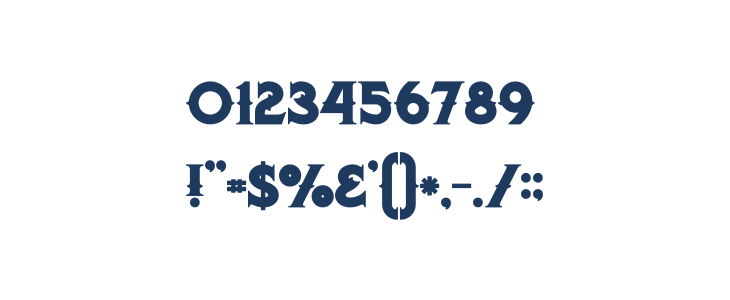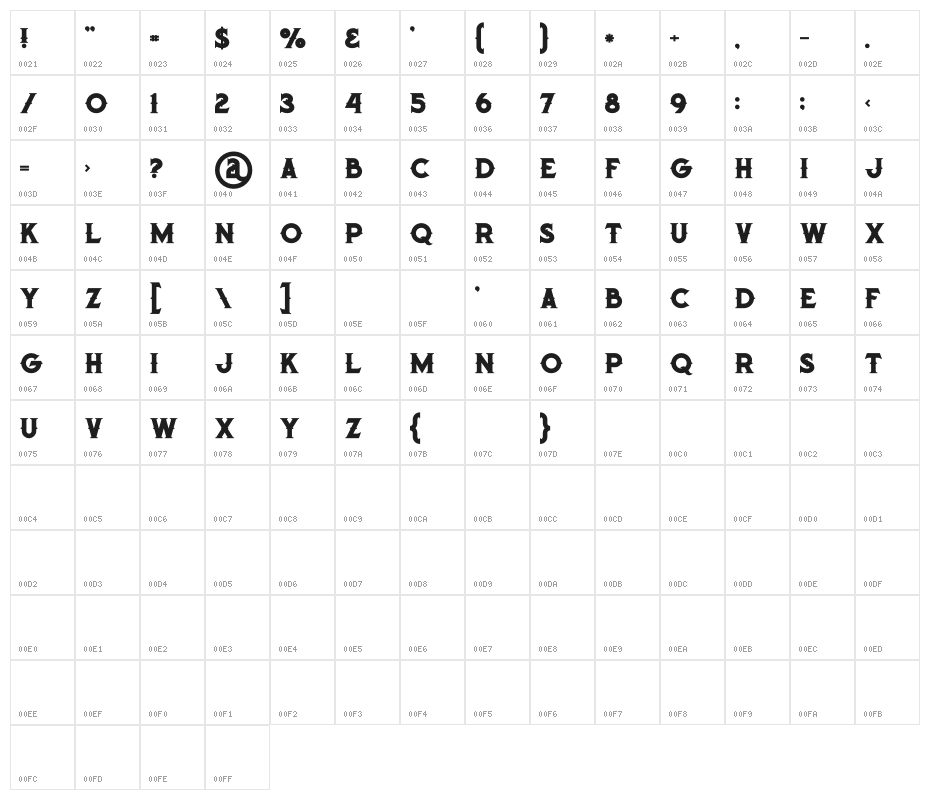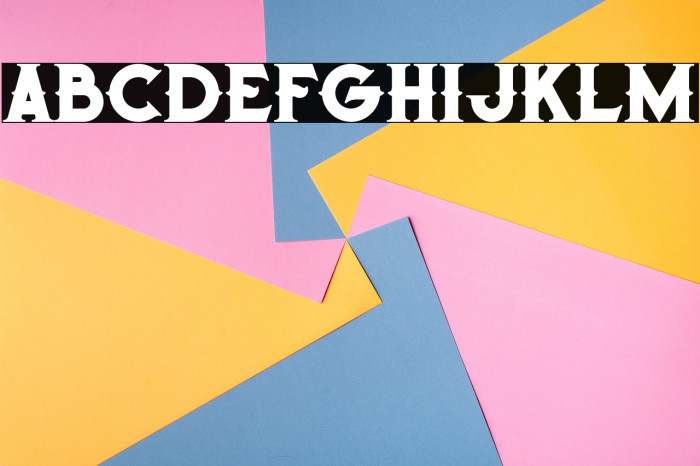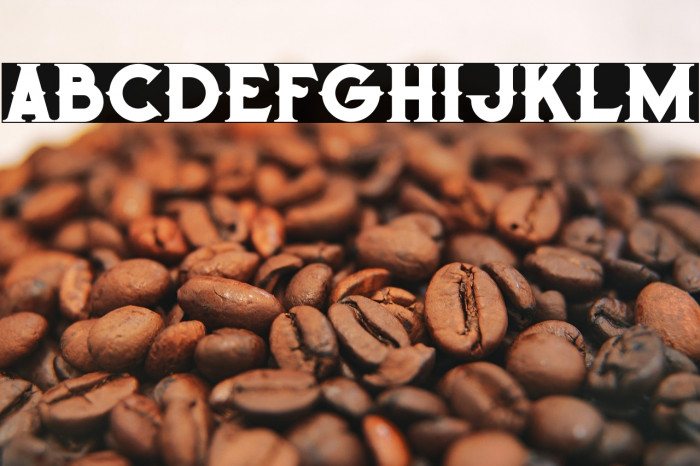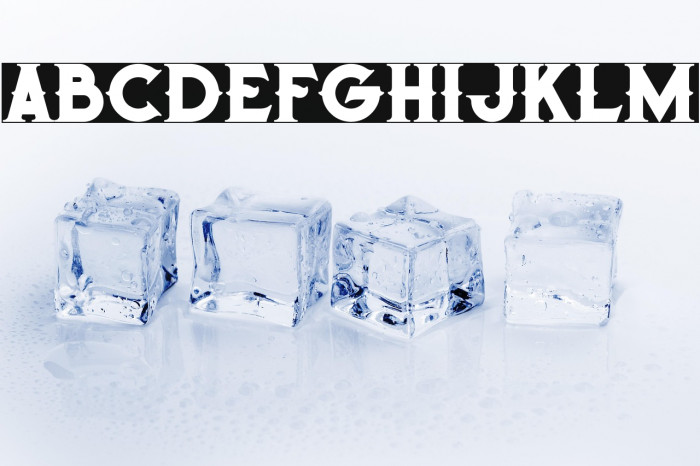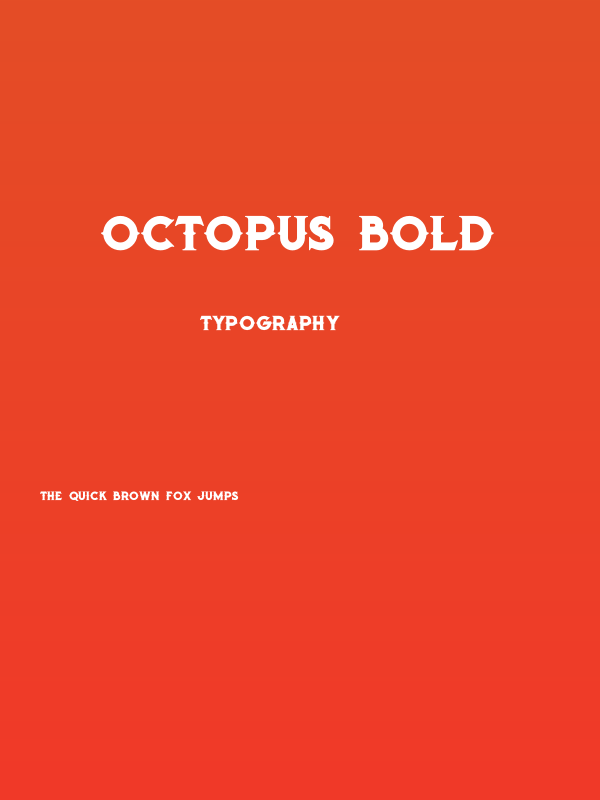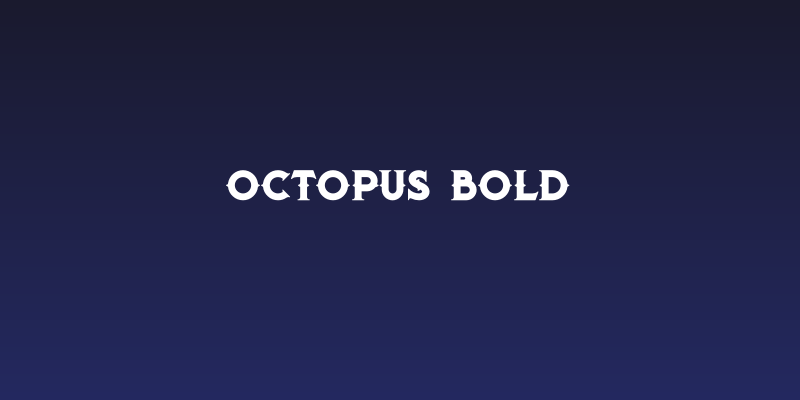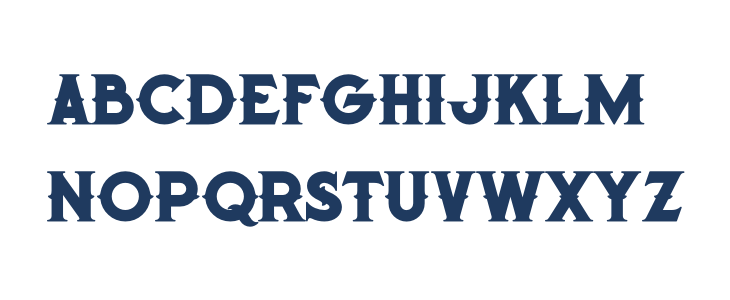
Octopus Bold Font
Octopus Bold Description
This font features a bold and striking design with a distinct vintage flair. The characters are characterized by thick, solid strokes and sharp serifs, giving them a strong presence. The uppercase and lowercase letters maintain a consistent style, with a slightly condensed form that enhances their boldness. The numerals and special characters follow the same design principles, ensuring uniformity across the font. The overall appearance is reminiscent of classic Western or circus-style typography, making it ideal for projects that require a touch of nostalgia or a bold statement.
| Proposed Projects | Ideal for posters, branding, headlines, and any design needing a vintage or bold statement. |